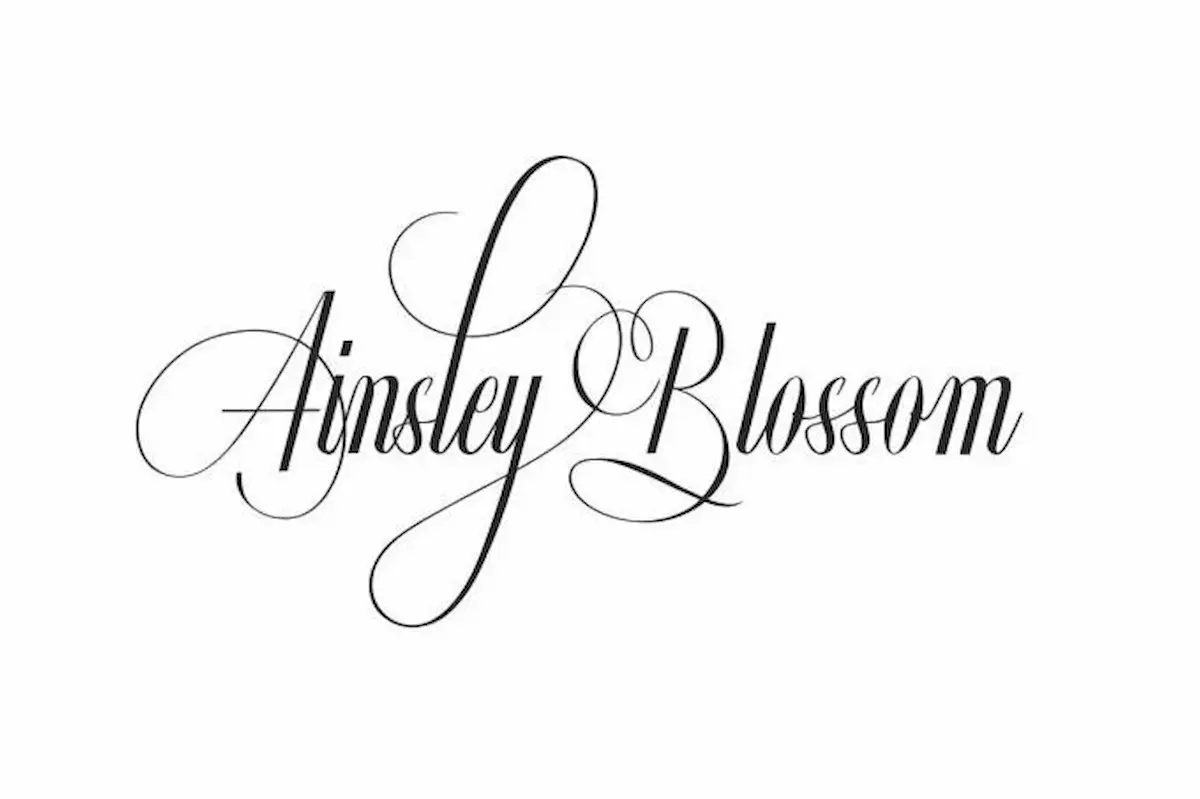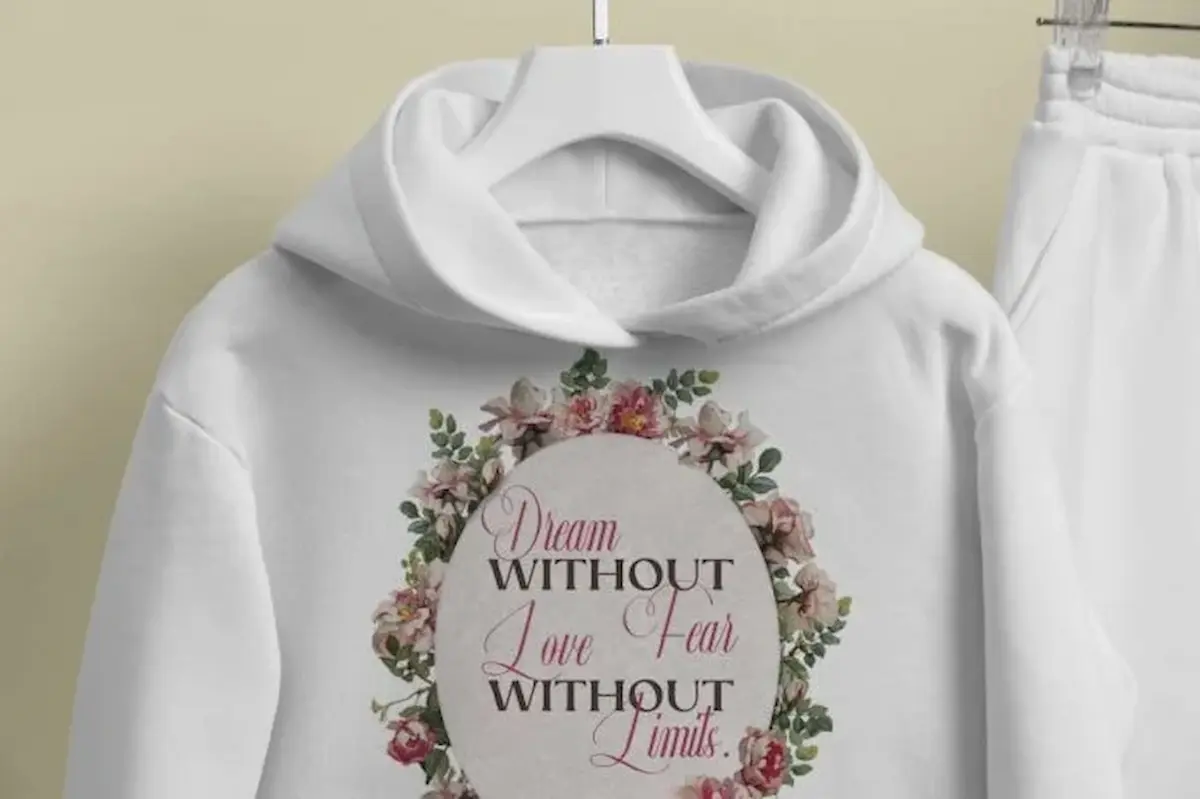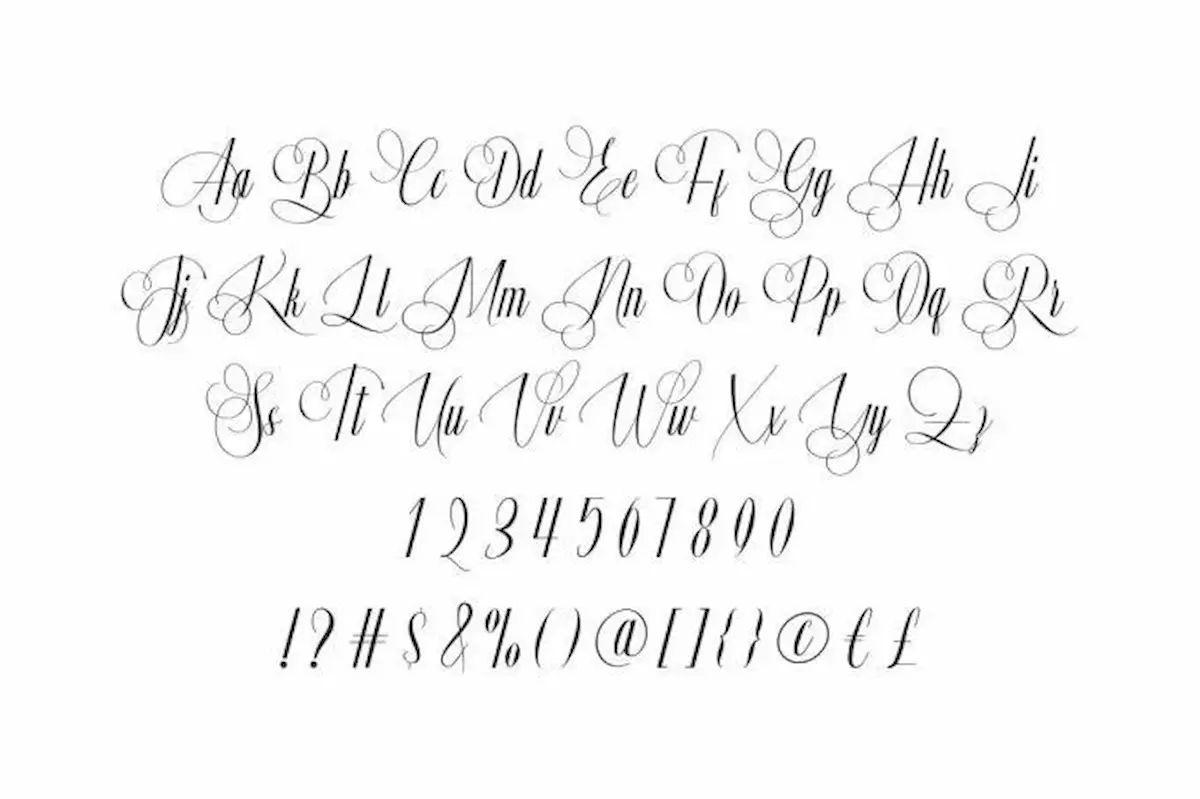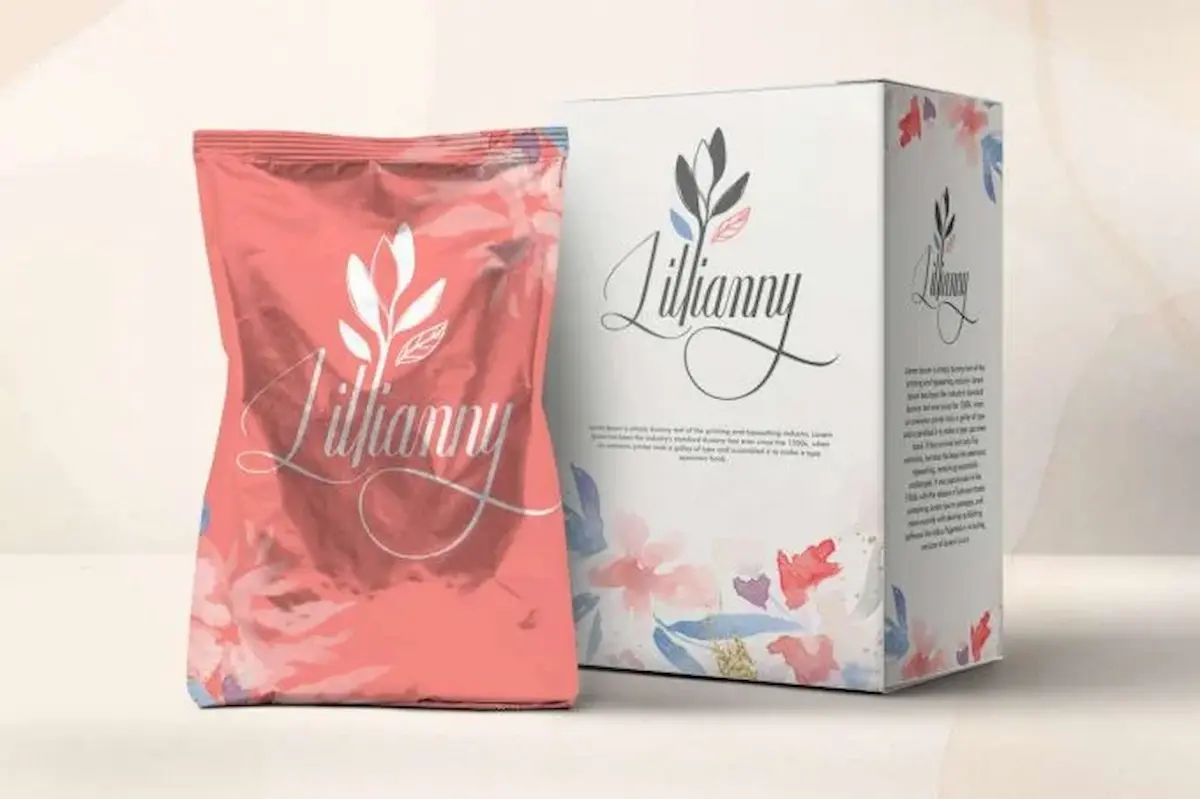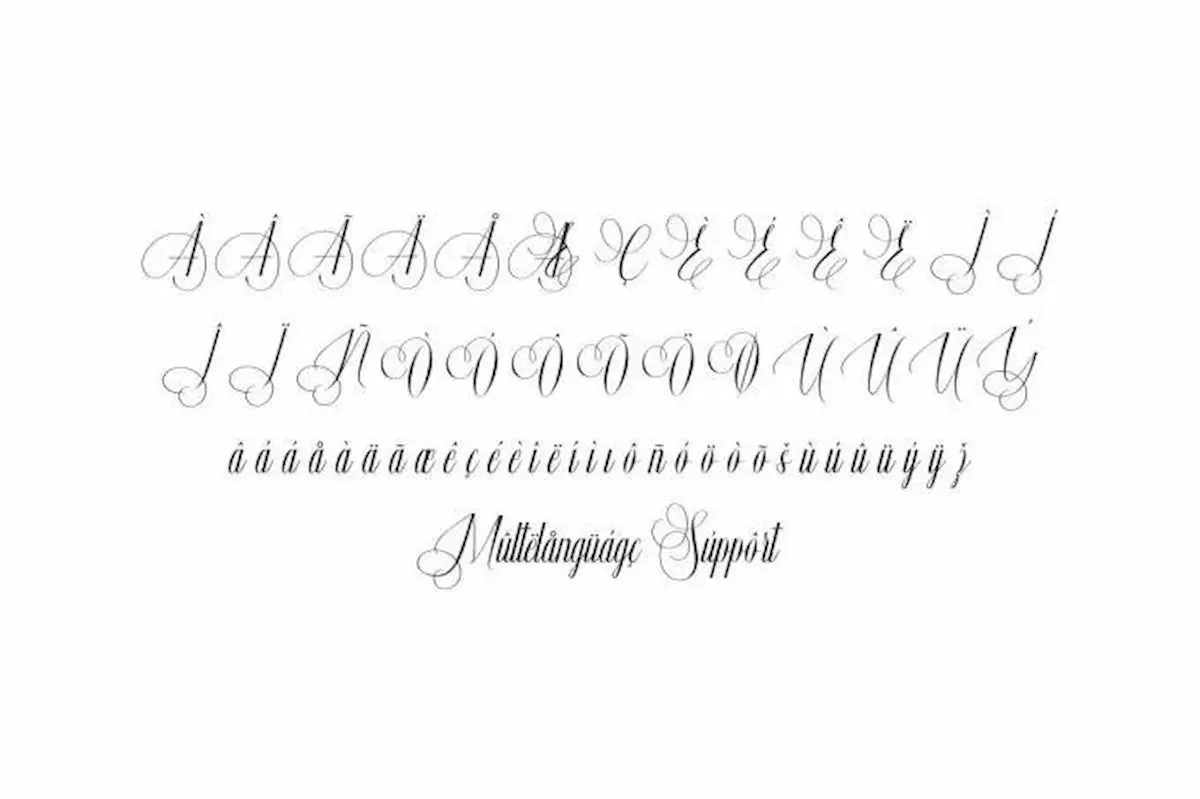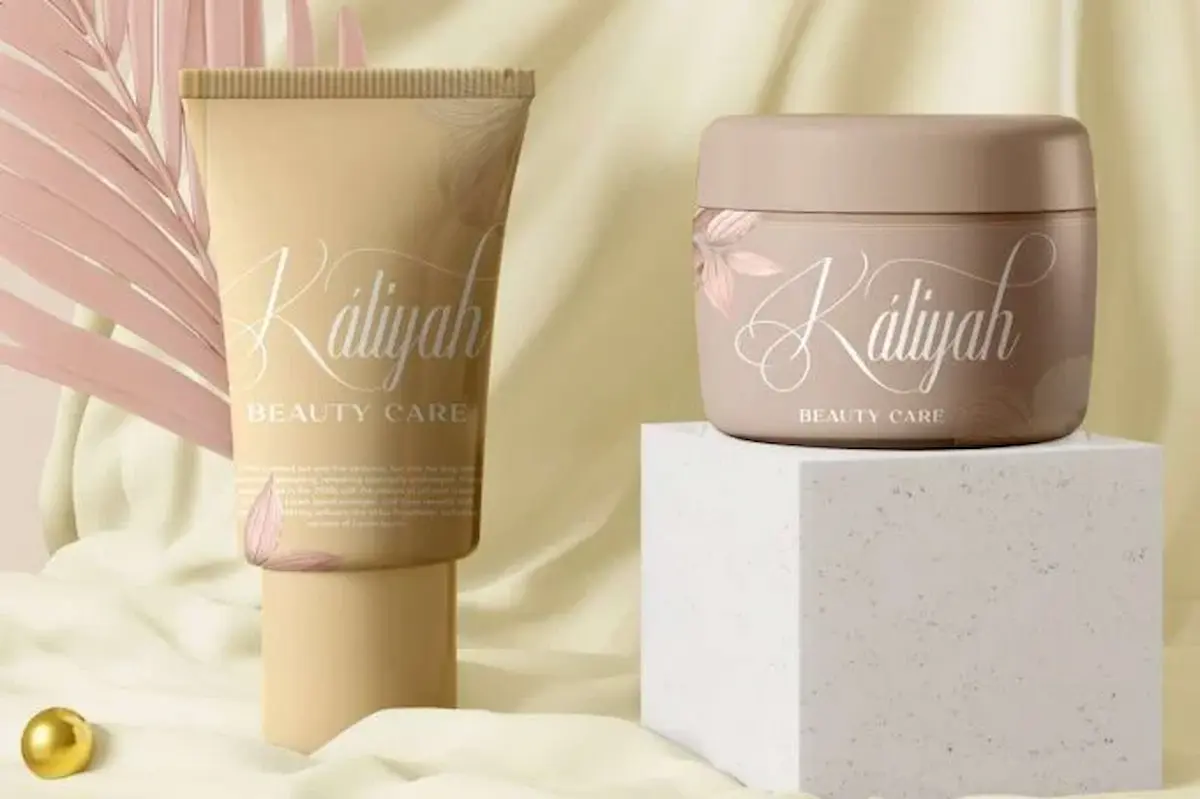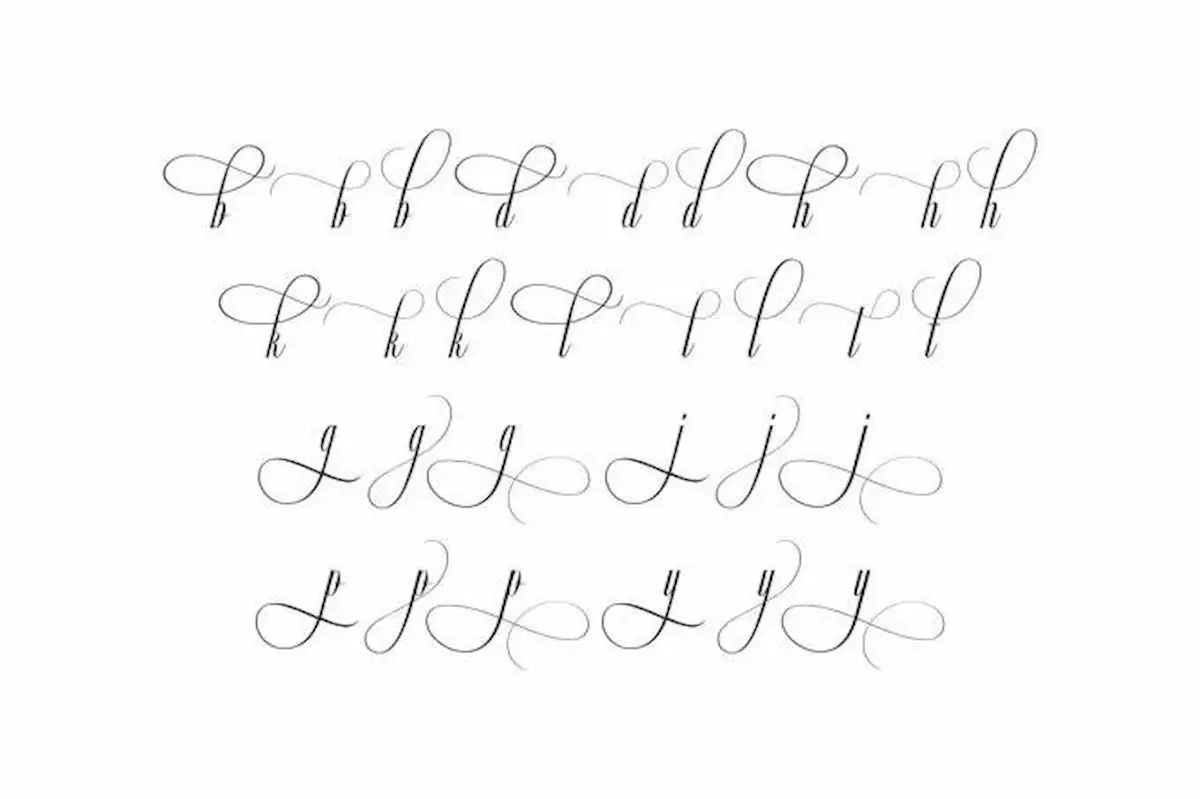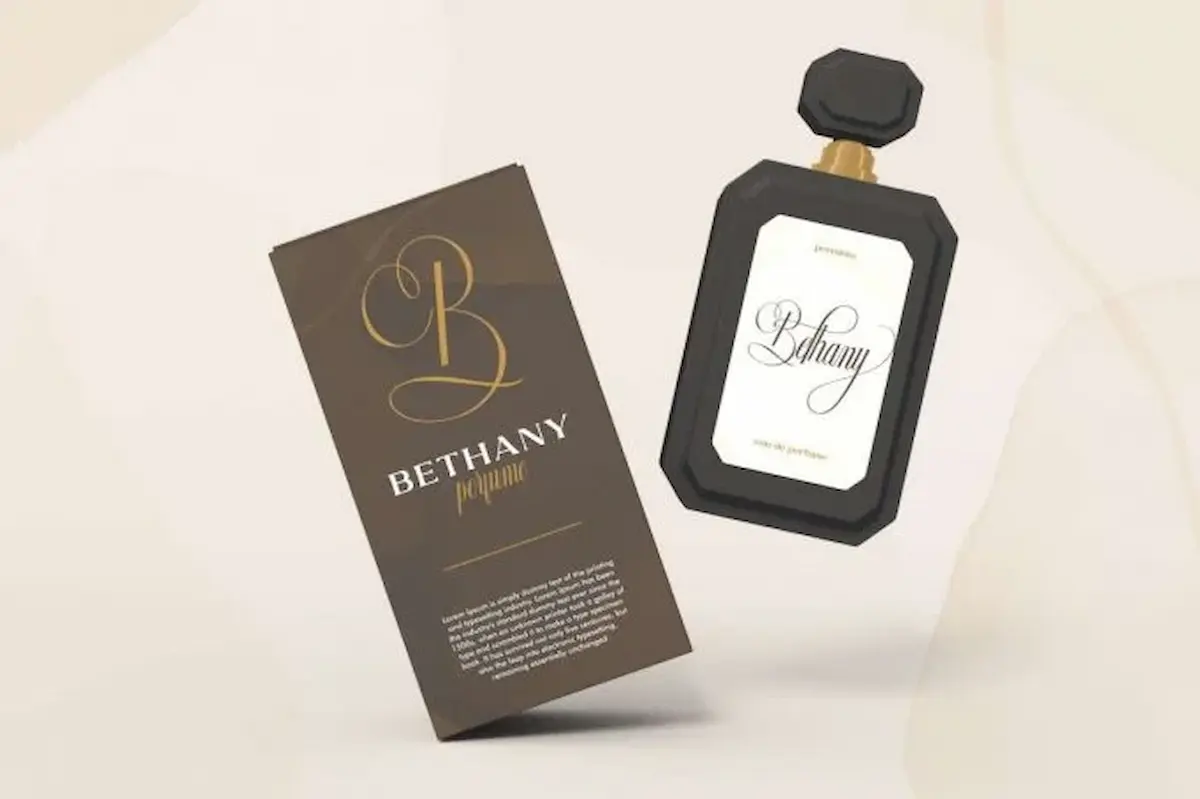
Ainsley Blossom Font is a classy yet modern script featuring a sweet handmade calligraphy style by NihStudio. It’s perfect for creating stunning greeting cards, invitations, label, title, weddings project & more.
Ainsley Blossom Font is a calligraphy font with a classic style and an elegant touch that also great for signature. This font will be a wonderful asset to your font library, as it has the potential to enhance any creation from business card, logo, stationery, branding, clothing print & tag, cosmetic, florist, magazine, packaging design, wedding invitation, and more.
Ainsley Blossom Font includes Uppercase & Lowercase Letters, Numbers, Punctuation, Alternative & Ligature. This calligraphy typeface is romantic and sweet, make your design professional and perfect in one minute. Start making modern designs such as advertisement, fashion brand, beauty products, poster, quote, and many more!